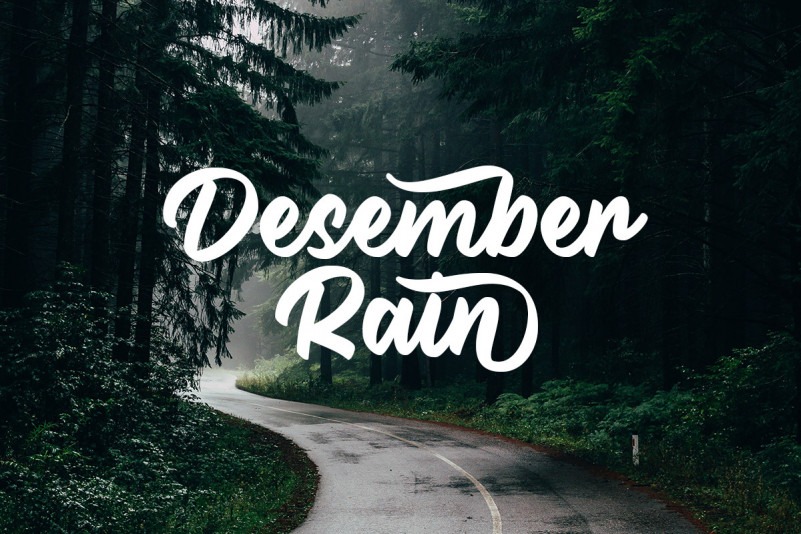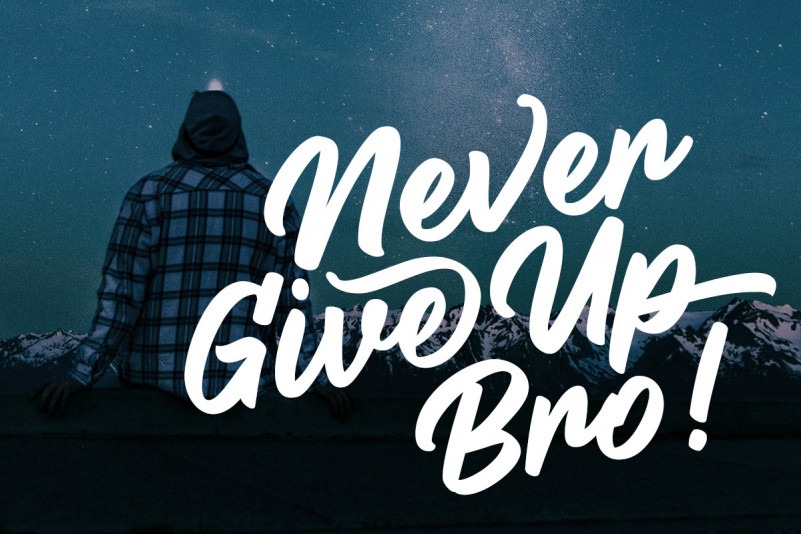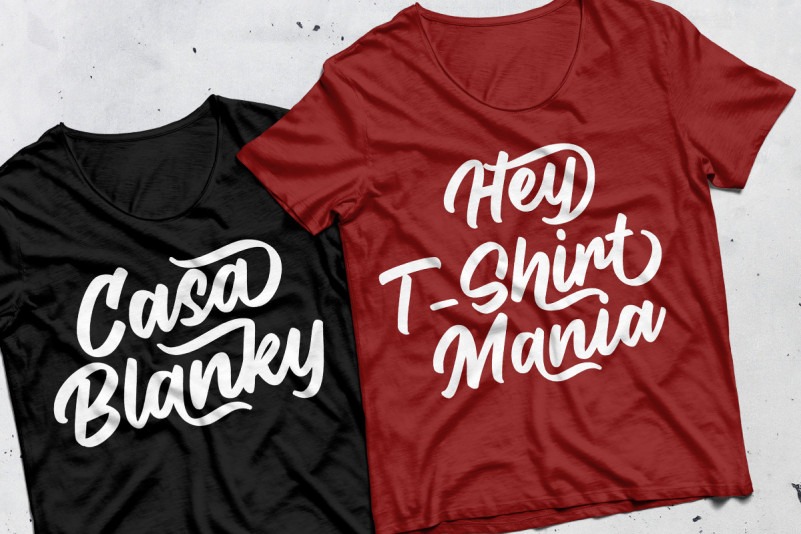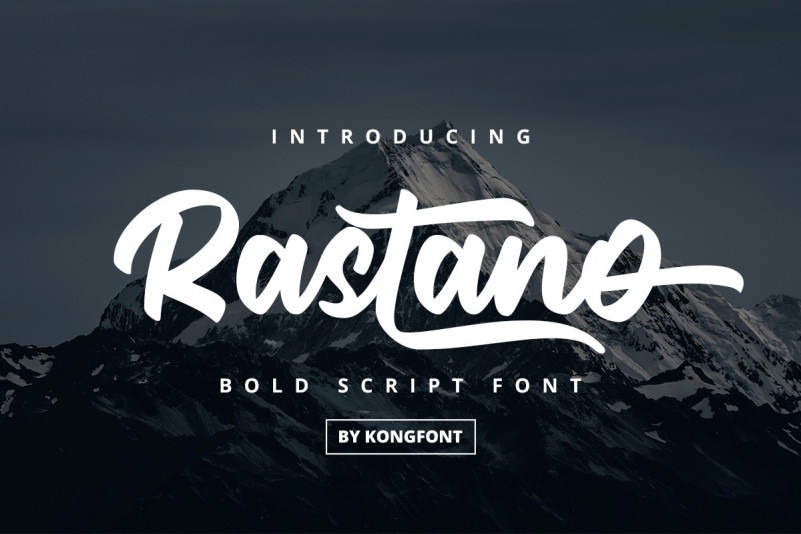
Rastano Script Font
This typeface designed by Kong Font is a clean and modern bold script font carefully created with a touch of elegance. This type of font perfectly made to be applied especially in logo, and the other various formal forms such as invitations, labels, logos, magazines, books, greeting / wedding cards, packaging, fashion, make up, stationery, novels, labels or any type of advertising purpose.